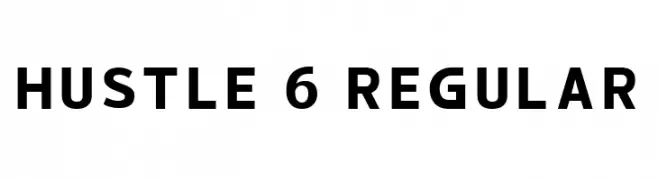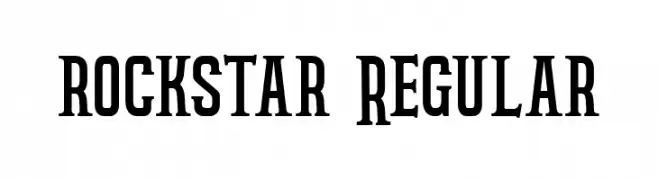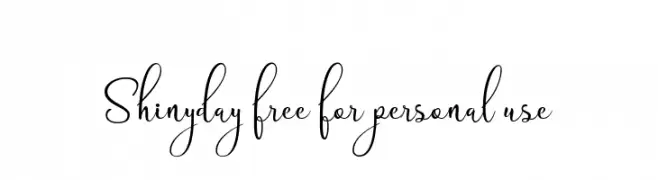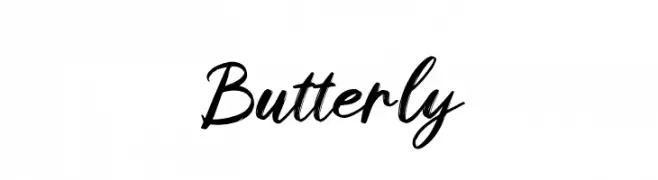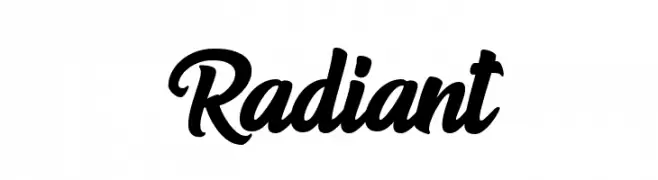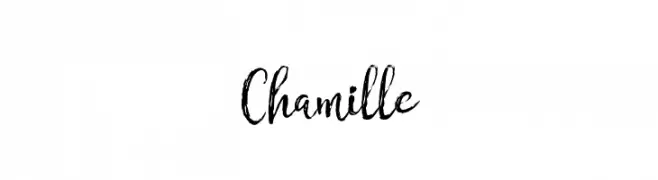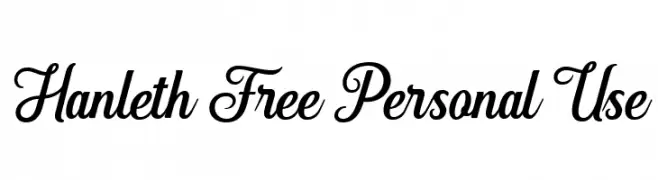
A bold, modern sans-serif font with uniform stroke width and clear readability.
A bold, serif font with elongated serifs and a commanding presence.
An elegant and flowing script font with ornate letterforms.
A dynamic, cursive font with a flowing, handwritten style.
A bold, expressive script font with fluid, dynamic strokes.
A bold, playful font with rounded, bubble-like forms and a dynamic, lively appearance.
A playful, bold font with smooth curves and decorative flair.
A whimsical and playful script font with elegant flourishes and loops.
A lively, brush-style font with dynamic, handcrafted strokes.
A stylish and elegant script font with flowing, connected letterforms.